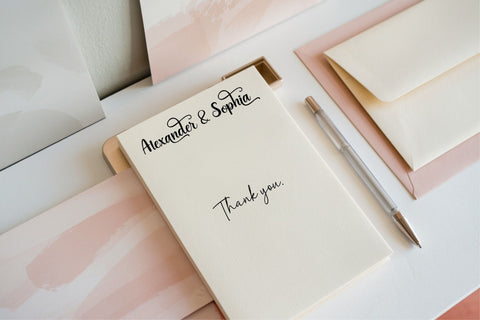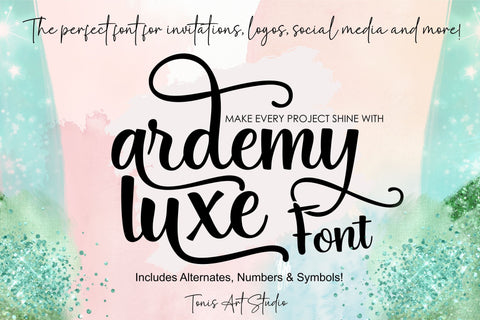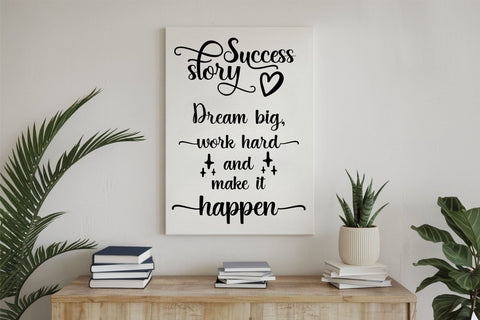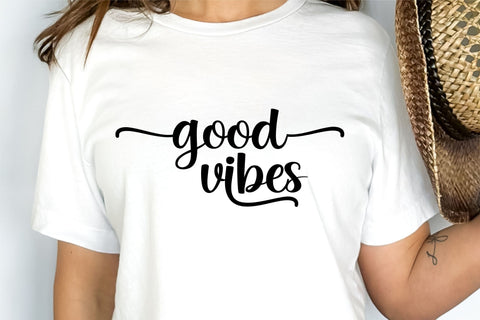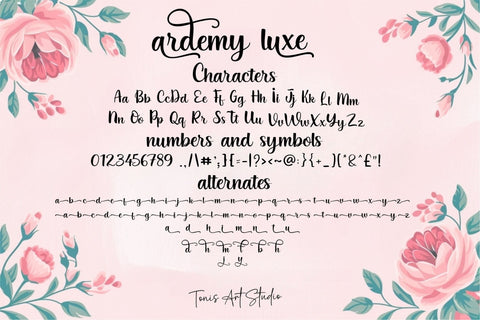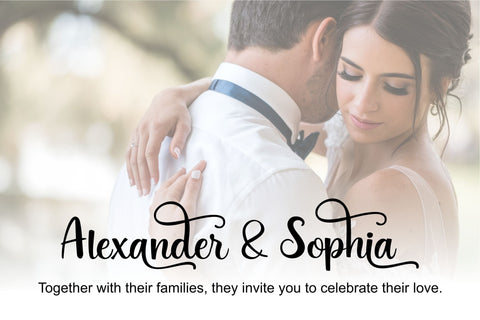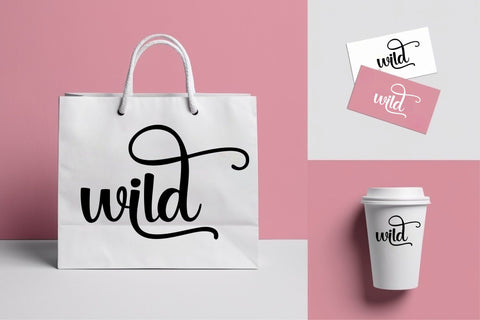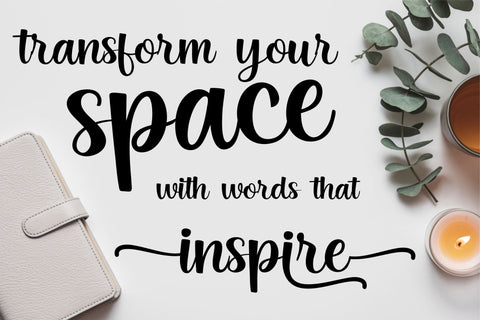
A luxurious and elegant script font designed for weddings, branding, and sophisticated designs. Perfect for creating stylish logos, invitations, social media posts, and more.